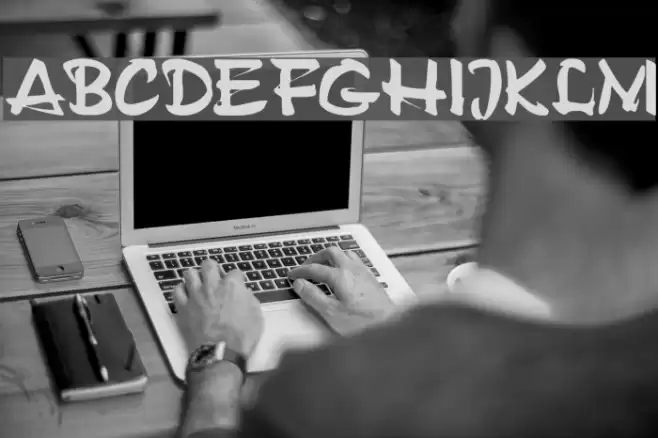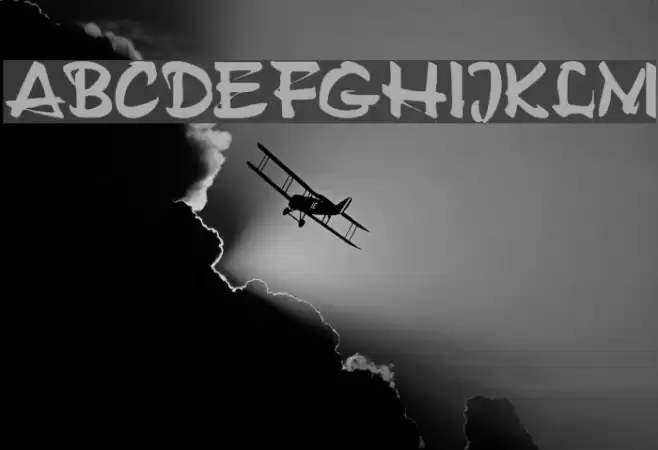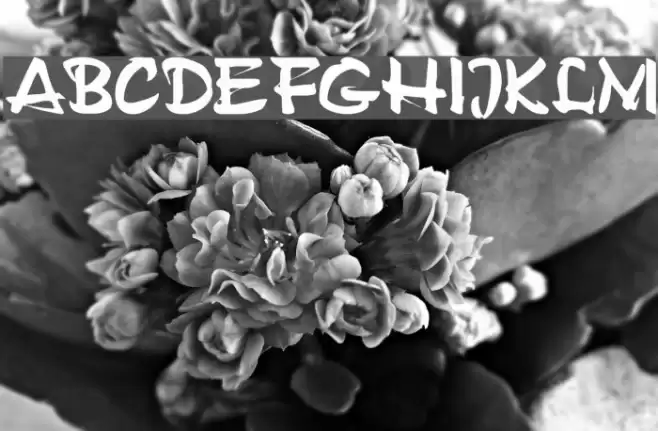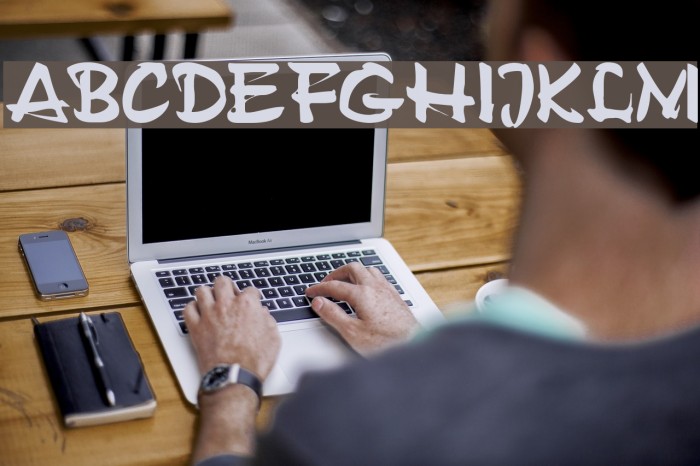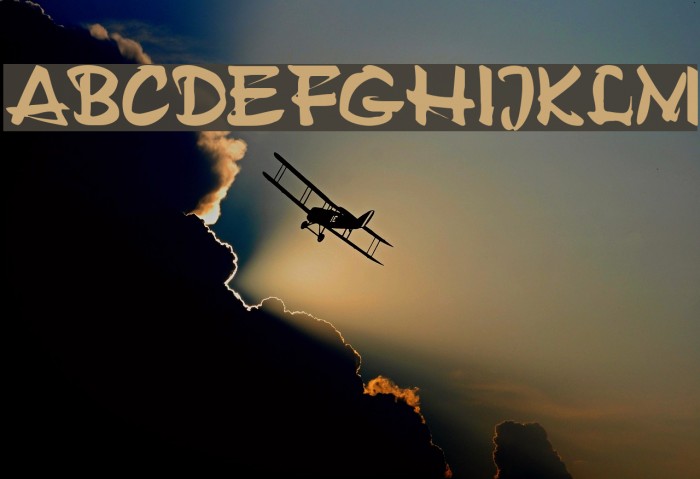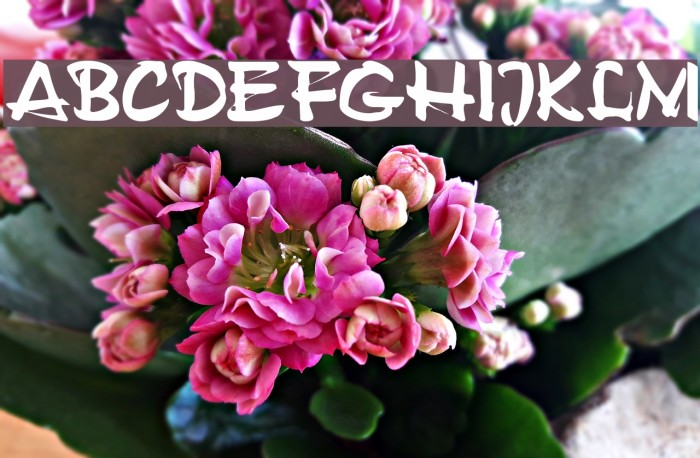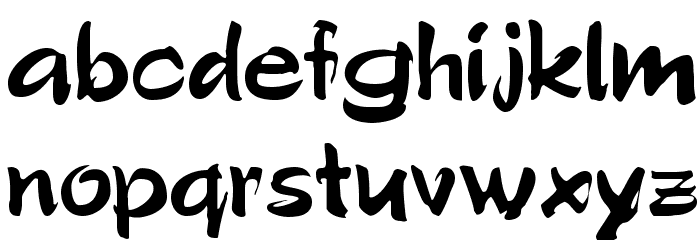
Stylo Bold Font
Stylo Bold Description
This font features a bold and dynamic style with a handwritten appearance, characterized by its fluid strokes and playful curves. The letters exhibit a sense of movement and energy, making it ideal for creative and expressive designs. The uppercase and lowercase letters maintain a consistent style, with a slight slant that adds to the informal and artistic feel. The numbers and special characters are equally bold, ensuring readability while maintaining the overall aesthetic. This font is perfect for projects that require a personal touch or an artistic flair.
A bold, handwritten-style font with dynamic and playful curves from Handwritten fonts.
- Proposed Projects: Ideal for greeting cards, posters, artistic branding, and creative social media graphics.
- Use Case: Logos, Headlines, Artistic projects